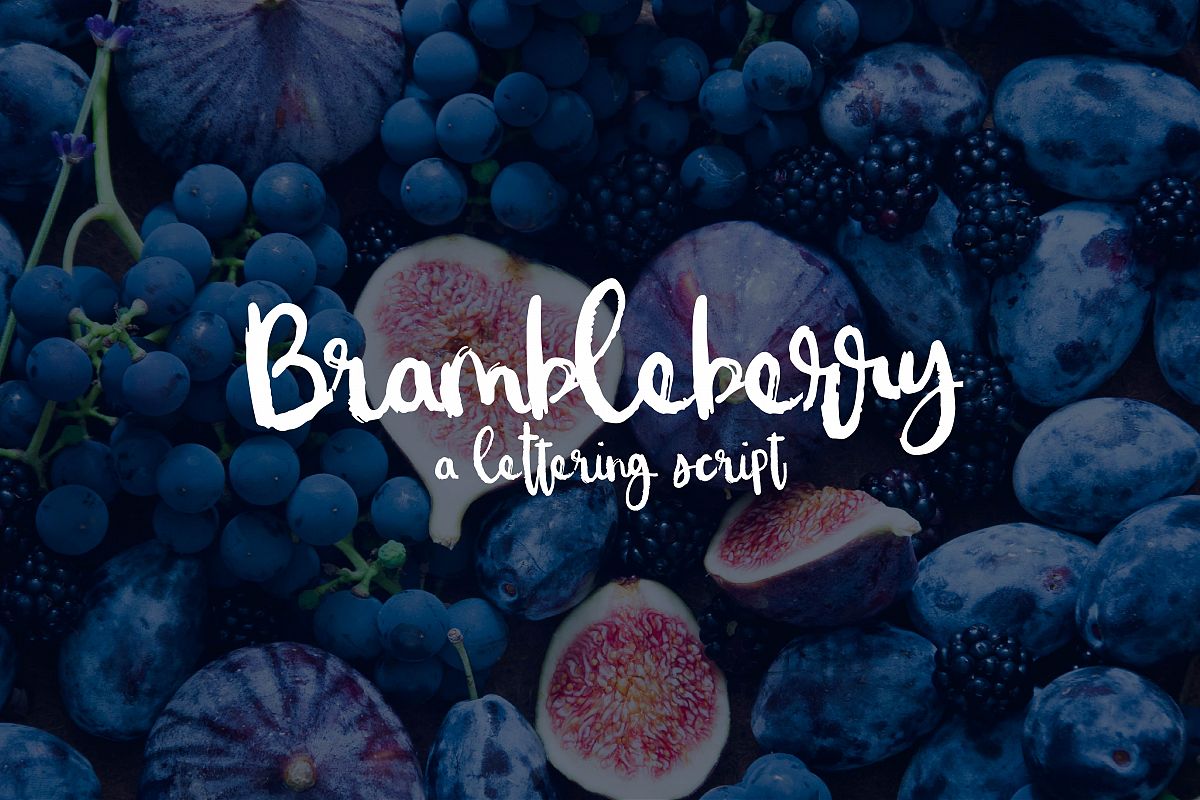
Brambleberry - A Lettering Script
Meet Brambleberry! Brambleberry is an ALL LETTERS script. Uppercase, Lowercase, Alternate glyphs/combos. Great for crafting and marketing!